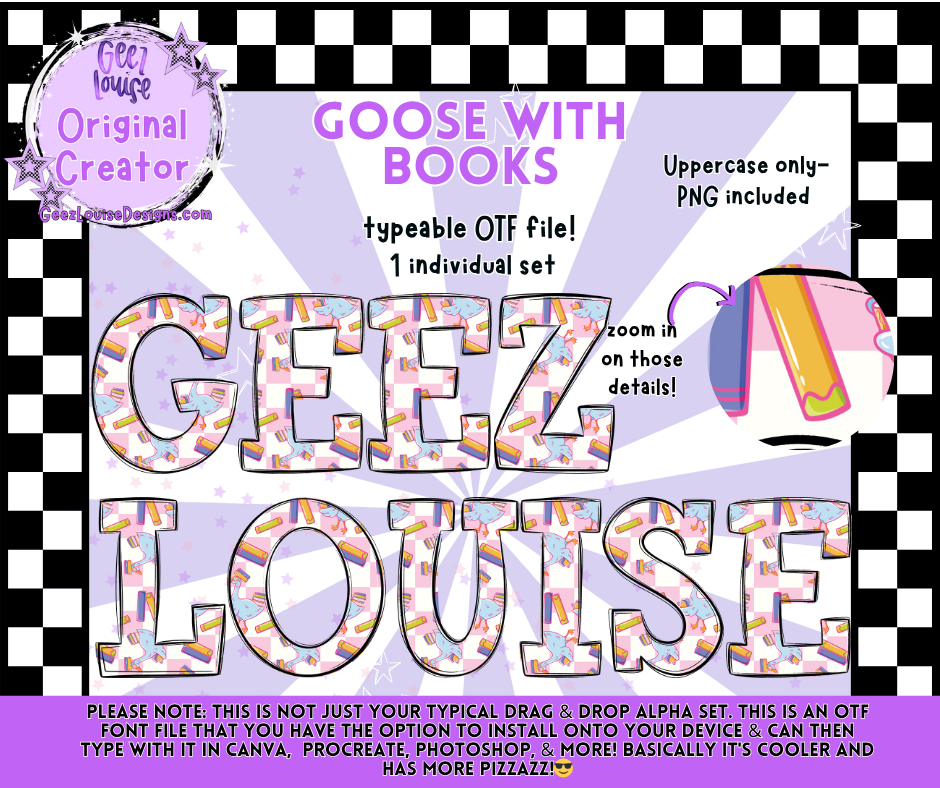
Goose with Books Typeable OTF Font + PNG Set
Get a little whimsical with the Goose with Books Typeable OTF Font! 📚🪿
This fun, storybook-inspired font combines playful geese and colorful books for a quirky, creative twist that’s perfect for teacher themes, book clubs, or cozy reading vibes. It’s a fully typeable OTF file — just install it on your device and type in Canva, Procreate, Photoshop, and more! Each uppercase letter is filled with adorable illustrated details that make your text stand out with personality.